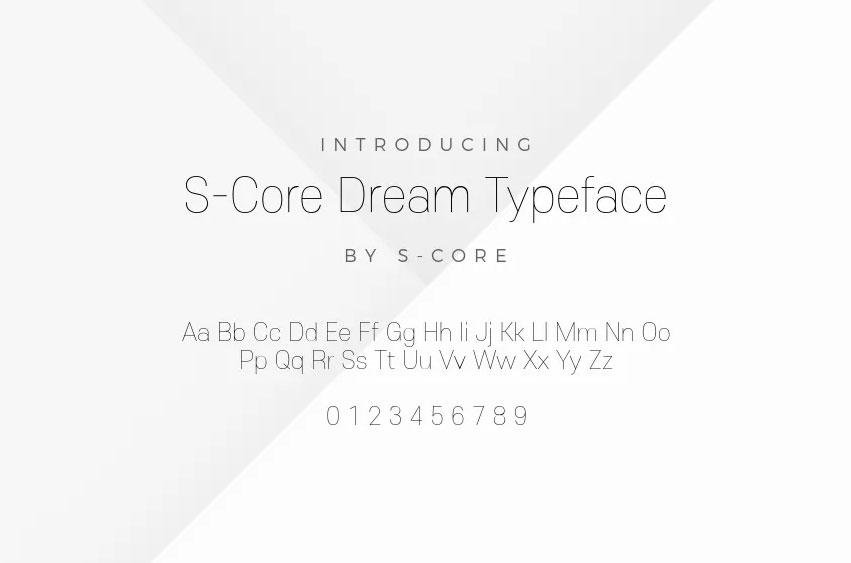
S-Core Dream Typeface Font
S-Core Dream Typeface Font Looking for a versatile sans serif font family that offers a modern twist on a retro design? Look no further than S-Core Dream Typeface. This font family boasts 9 different weights, making it a great choice for titles of all kinds.
With a full rectangular structure and vertical stroke finish in each grapheme, this font is the perfect choice for anyone seeking a unique and expressive font. So why wait? Try S-Core Dream Typeface today and see why so many designers are falling in love with this amazing font!